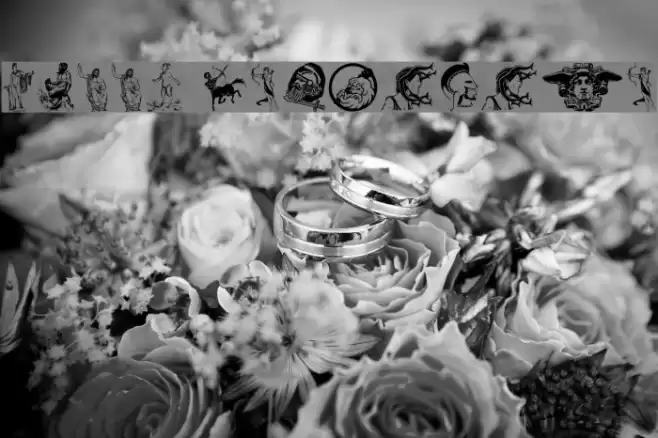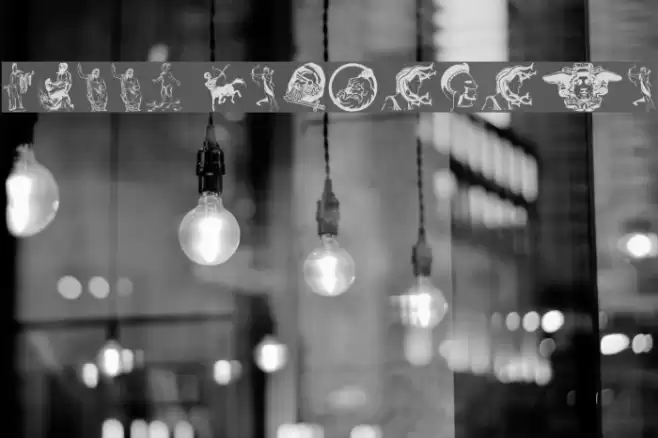
Greek Mythology Font
Greek Mythology Description
A decorative dingbat set featuring detailed silhouettes and line art of Greek mythology symbols, gods, heroes, architectural elements, and motifs. The glyphs include lyres, laurels, ships, helmets, temples, mythological figures, vases, and iconic creatures, rendered in both solid and outlined styles.
A Greek mythology-themed decorative dingbat collection from Dingbats fonts.
- Proposed Projects: Educational materials, themed event invitations, posters, book covers, museum signage, historical presentations, and creative branding.
- Overall Style: Decorative, Thematic, Classic
- Use Case: Icons, Illustrations, Themed graphics